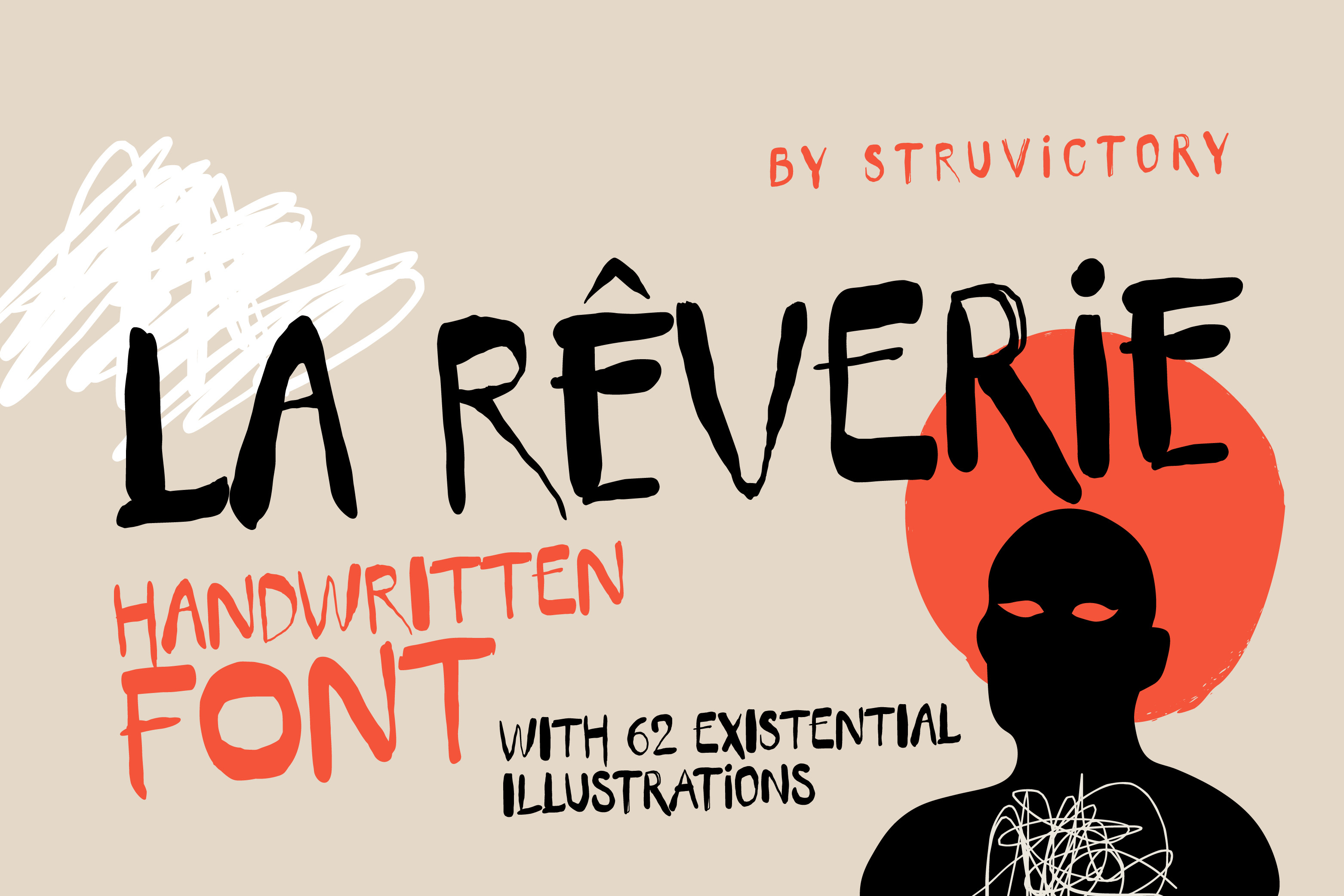
Reverie Handwritten Font & Symbols
Reverie is more than just a font; it's a bold, expressive statement, crafted with a raw, uppercase energy that captures the essence of unfiltered emotion. Its bold strokes and imperfect lines create a sense of authenticity and immediacy, making it perfect for crafting impactful psychological posters, captivating book covers, bold podcast artwork, engaging social media graphics, eye-catching prints, and unique packaging. Pair Reverie Handwritten with our exclusive set of psychological illustrations (Reverie Symbols) to add a layer of visual depth and meaning to your designs, creating a truly unique and impactful experience for your audience.